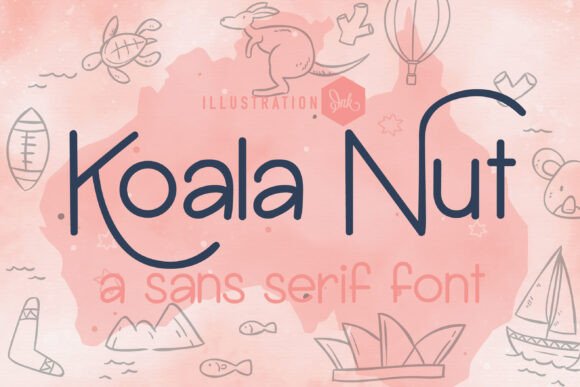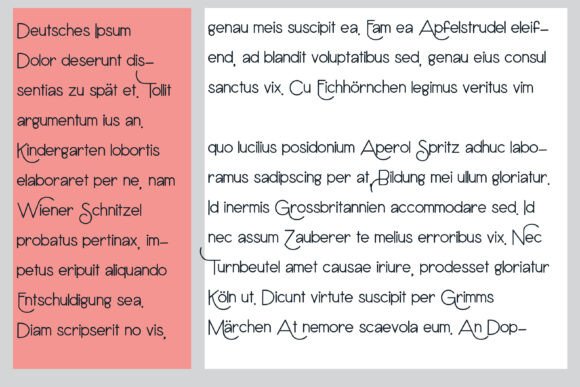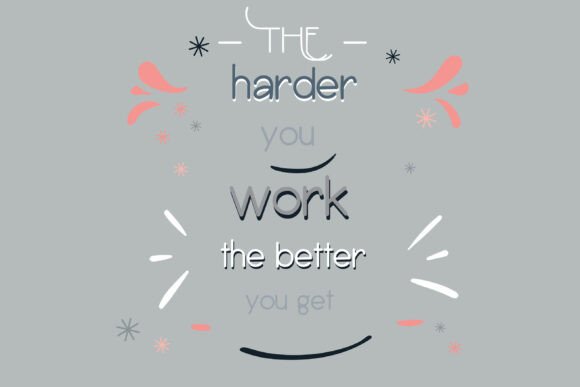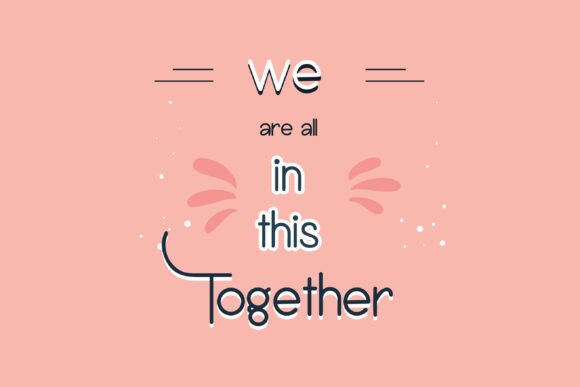
Koala Nut Font: A Cute Sans Serif for Cricut & DIY Projects
About the Koala Nut Font
Make a bold statement with Koala Nut Font, a powerful and memorable font. This hand-crafted font is sans serif with lots of flourishes in the uppercase.
Bold and light version included.
Koala Nut Font is ideally suited for headlines, short text blocks, and branding applications where a playful yet sophisticated feel is desired. Its bold, hand-crafted nature makes it perfect for logos, short marketing copy, or packaging designs for products targeting a younger, more creative audience. Avoid using it for body text or lengthy paragraphs; the ornate flourishes can become visually overwhelming and hinder readability.
Consider pairing Koala Nut with a clean, geometric sans-serif like Montserrat for a modern contrast, or a classic serif like Garamond for a more traditional balance. A simple script font could also work well for certain applications, adding a touch of elegance without competing with Koala Nut’s distinctive character.
The font’s overall personality is bold and friendly, with a touch of whimsy. It projects approachability and creativity, making it a strong choice for brands focused on fun, innovative products or services.
Koala Nut Font Usage Examples
Koala Nut Font Example